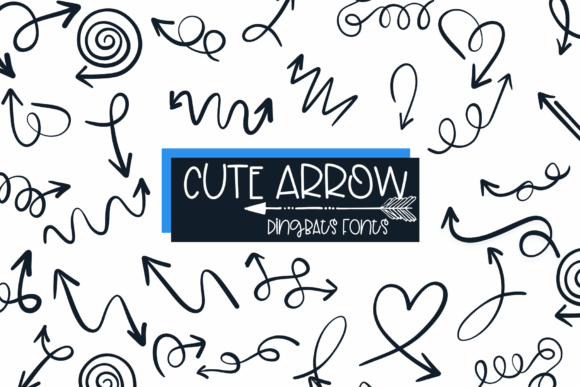
The Joy of Crafting with the Cute Arrow Font
Who hasn’t felt that rush of excitement when brainstorming a creative project? Perhaps you’re planning a wedding, and you want your invitations to be truly special. Or maybe you’re a DIY enthusiast looking to add a personal touch to your home decor. Whatever the project, you’re likely on the hunt for the perfect font to bring your vision to life.
Enter the Cute Arrow Font, a delightful dingbats font with a sketched style that’s sure to capture your heart. This charming font is designed to enhance your creative projects, from wedding invitations and DIY crafts to decorations and logos. Its playful, hand-drawn aesthetic makes it a valuable tool for designers looking to add a touch of whimsy to their work.
- Font Style: Cute Arrow Font is a playful, handwritten font with a mix of cute and modern elements.
- Character Set: Includes a wide range of characters, including uppercase and lowercase letters, numbers, and punctuation marks.
- Unique Characteristics: Features distinctive arrow elements and cute details, making it perfect for adding a playful touch to designs.
Cute Arrow Font Review
I recently had the chance to work with the Cute Arrow Font, and I must say it’s a delightful addition to any design project. ✨ One of the things that stands out is its playful and whimsical feel, making it perfect for children’s books, party invitations, or any other project that requires a touch of fun and personality. ✨ The font’s rounded edges and soft lines create a sense of approachability and friendliness, which is great for branding and marketing materials.
However, I do have a few reservations about the font’s versatility. ⚠️ One of the limitations I noticed is that it may not be suitable for formal or professional projects, as it can come across as too childish or immature. ⚠️ Additionally, the font’s small size can become difficult to read, especially in digital formats. ⚠️
Overall, I think the Cute Arrow Font is a great choice for designers who want to add a touch of playfulness to their projects. While it may not be the best fit for every project, it’s definitely worth considering for the right type of design.
- Pros: Playful and whimsical feel, great for children’s projects or party invitations, soft lines and rounded edges create a sense of approachability.
- Cons: May not be suitable for formal or professional projects, can be difficult to read in small sizes.
The Cute Arrow Font is ideal for:
- Children’s educational materials
- Infographics
- Marketing materials
- Personal projects